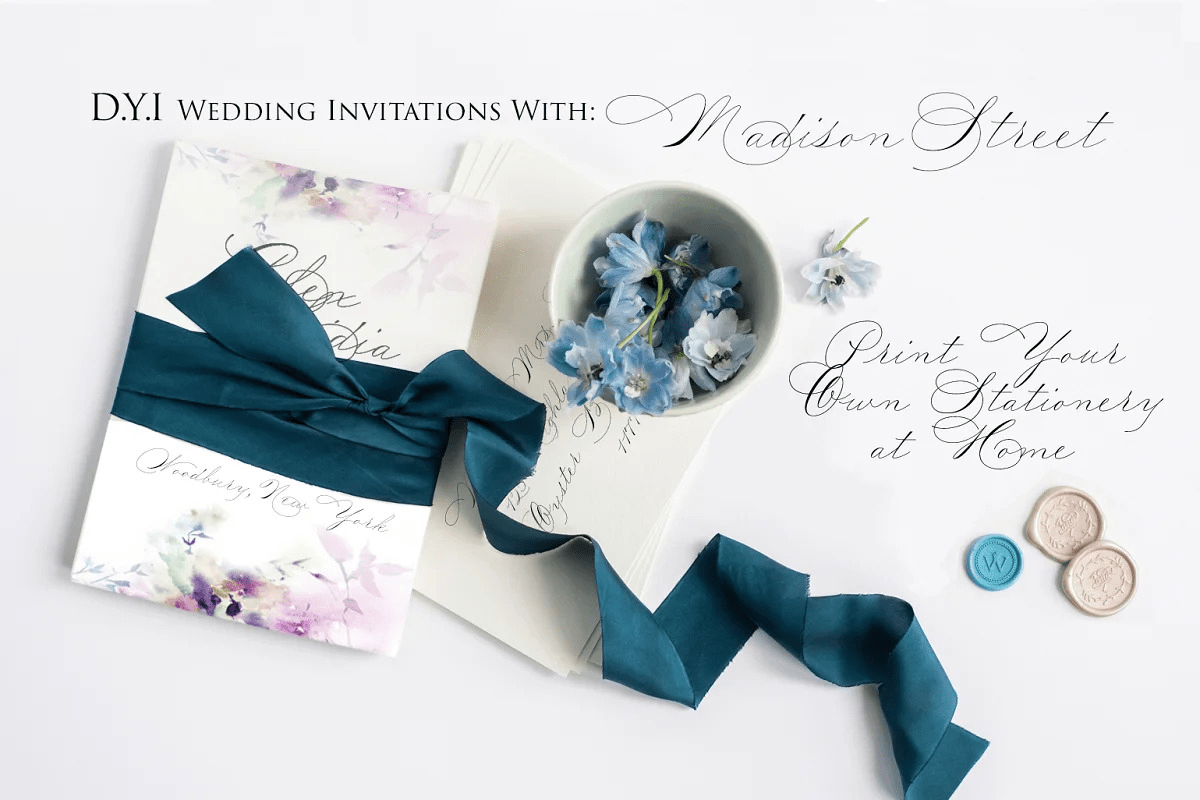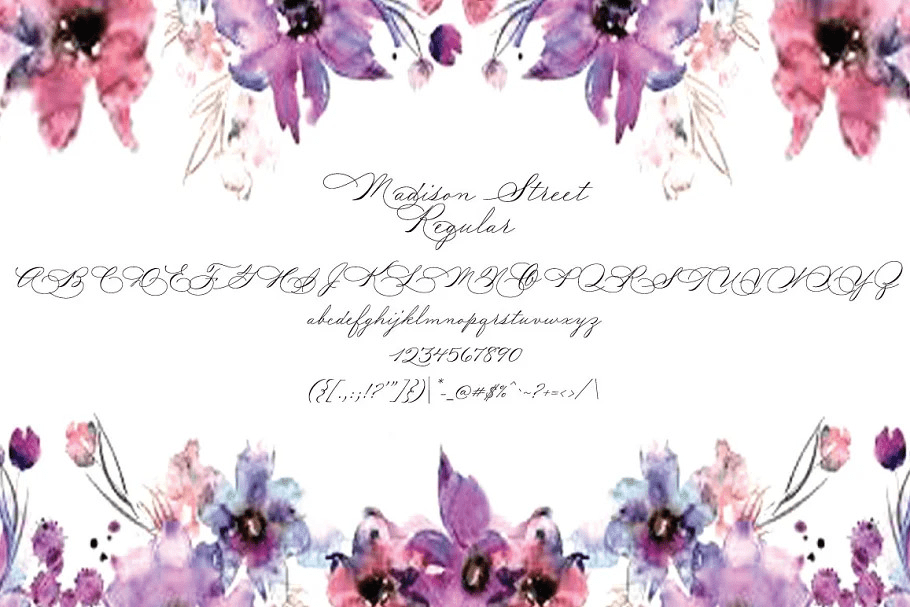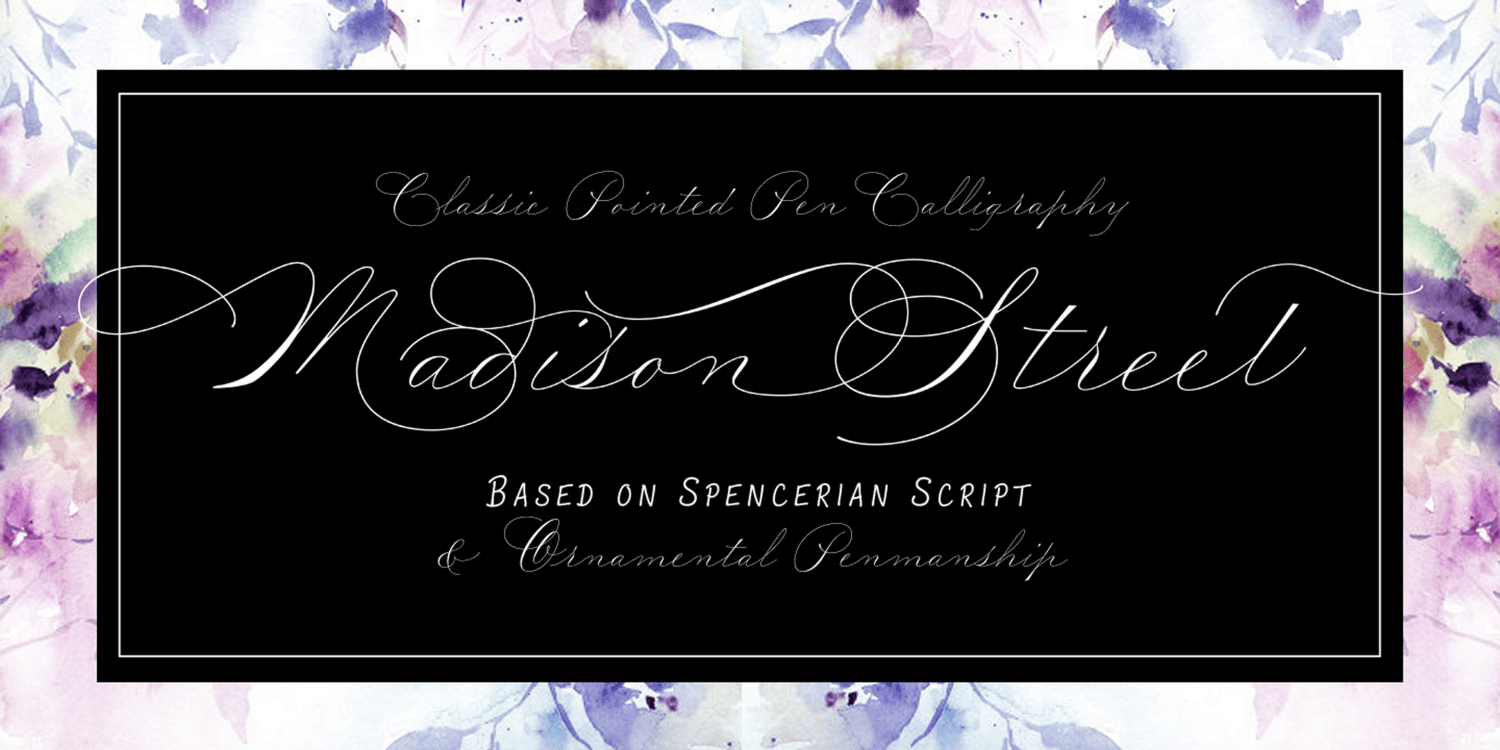
Madison Street
About Madison Street
Madison Street is a new font family from Studioways! We have teamed up with Spencerian calligrapher Elaina DeBoard to create this classic pointed pen calligraphy font, as well as some ornaments and companion text fonts, based on Elaina\’s own printing…